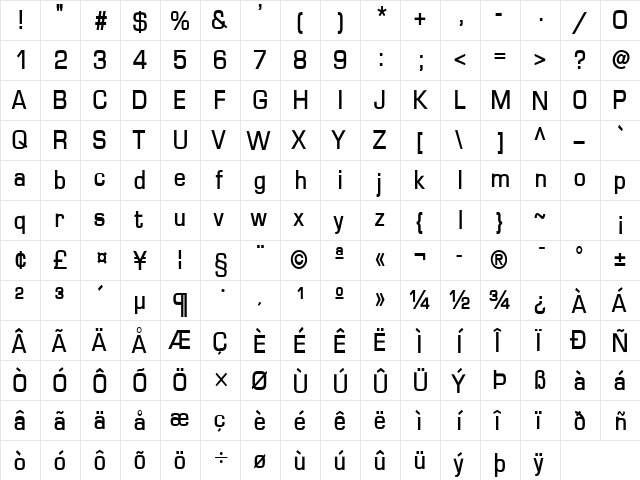
Eurasia Bold
Design Context for Eurasia Typeface
Eurasia is a composed and adaptable typeface that performs quietly and consistently across a wide range of design contexts. The heavy weight commands attention and anchors typographic hierarchies.